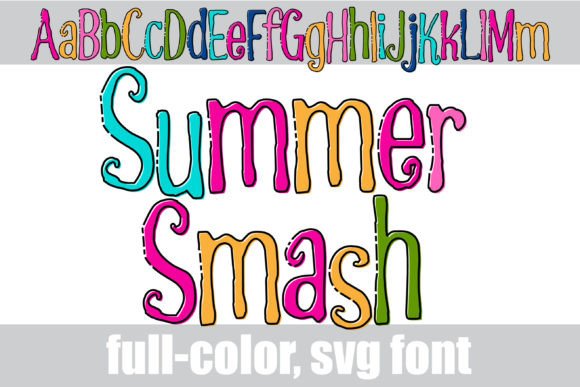
Bringing Summer Smash to Life in My Craft Studio
I was sitting at my desk, surrounded by stacks of paper, ink pens, and a few half-finished mockups, when I first saw Summer Smash pop up on my screen. It wasn’t just any font—it was a full-color typeface that felt like a warm summer breeze wrapped in typography. As a handmade seller who creates everything from greeting cards to candle labels, I knew this was the kind of font that could make my designs stand out.
Summer Smash is a modern sans serif with a playful twist, thanks to its summery color palette. The alt case adds even more visual interest, offering extra colors that can be accessed through your system’s character map. It's not just a font; it's a mood—bright, cheerful, and perfect for seasonal products.
Designing with Summer Smash: A Real-World Example
Last week, I was working on a new line of soy candles for the upcoming summer season. I wanted the labels to feel fresh and inviting, something that would catch the eye on a shelf or in a gift basket. I opened my design software and started experimenting with Summer Smash.
The font’s clean lines and vibrant colors made it easy to create a label that looked both professional and fun. I paired it with a soft pastel background and added some hand-drawn illustrations of sunflowers and seashells. The result was a label that screamed “summer” without being over the top.
I printed a few test samples and stuck them on sample jars. The colors stayed true, and the text was crisp and legible—even on small stickers. That’s always a concern when using colored fonts, but Summer Smash handled it beautifully.
Where Can You Use Summer Smash?
Summer Smash is incredibly versatile. Here are just a few of the ways I’ve used it in my creative work:
- Candle Labels: Perfect for creating a cohesive look across different scents and sizes.
- Greeting Cards: Ideal for birthday, thank you, and holiday cards with a sunny, upbeat vibe.
- Wedding Invitations: Adds a touch of warmth and personality to stationery that feels personal and unique.
- Wall Art: Works well for printable art pieces that need a pop of color and charm.
- Boutique Packaging: Makes product boxes and tags feel more curated and special.
- Digital Templates: Great for digital downloads like planners, calendars, and social media graphics.
No matter what you're making, Summer Smash brings a sense of joy and energy that can elevate your brand and connect with your audience on an emotional level.
Font Pairing Tips and Readability Advice
When designing with Summer Smash, I often pair it with a clean sans serif or simple serif font to balance the boldness of the main typeface. For example, I might use it for headlines and then switch to a minimalist sans serif for body text. This keeps the design visually appealing without overwhelming the reader.
If you're using Summer Smash for small stickers or product labels, it's important to ensure the text remains readable at smaller sizes. I recommend testing it in your design software before printing to make sure the colors don’t bleed or become distorted. Also, check if the font includes any ligatures or alternate characters that could enhance your design further.
Emotional Appeal and Brand Consistency
Typography plays a big role in how customers perceive your brand. Using Summer Smash consistently across your shop materials helps build recognition and trust. Whether it's on your website, packaging, or social media posts, the font adds a layer of personality that makes your brand feel more approachable and authentic.
I've noticed that my customers respond positively to the cheerful aesthetic of Summer Smash. It gives my products a sense of quality and care that resonates with people looking for handmade, one-of-a-kind items.
Whether you're designing for a seasonal collection or building your brand identity, Summer Smash is a great choice for adding a touch of summer to your creative projects. It’s practical, beautiful, and full of potential for makers who want to bring their vision to life in a way that feels both fresh and familiar.